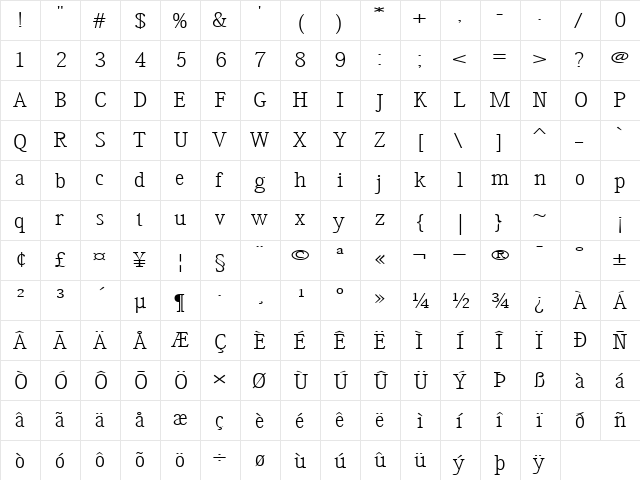
Good Regular
Design Context for Good Typeface
Good is a composed and adaptable typeface that performs quietly and consistently across a wide range of design contexts.